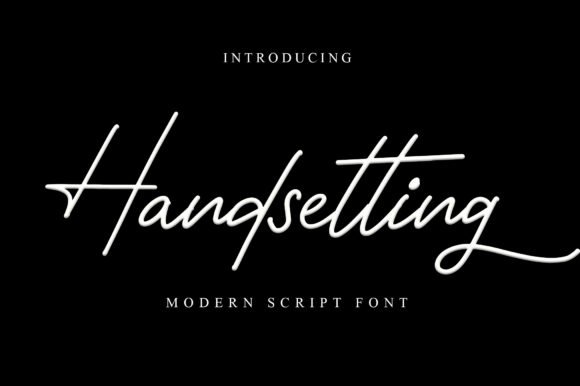
Discover the Timeless Elegance of Handsetting Font
There’s something magical about holding a pen to paper and watching words come to life. For designers, this moment is often the spark that ignites a creative idea. It’s the thrill of bringing a concept to life, of infusing emotion and personality into every detail. And when it comes to typography, few fonts evoke the same sense of wonder and sophistication as the Handsetting Font.
Handcrafted with love and precision, this beautiful script font is designed to add a touch of elegance to any design. Whether you’re working on a wedding invitation, a luxury brand brochure, or a heartfelt letter, Handsetting Font is the perfect choice for those who crave a unique and refined look.
With its delicate curves and subtle flair, Handsetting Font is a valuable addition to any designer’s toolkit. Its versatility and sophistication make it a go-to choice for projects that demand a level of refinement and sophistication. Whether you’re a seasoned pro or just starting out, Handsetting Font is sure to inspire your next creative project.
Key Features of Handsetting Font
- Unique characteristic: Handsetting Font features a distinctive, handwritten aesthetic with subtle imperfections, giving it a personal and human touch.
Review: Handsetting Font
First off, let’s talk about what I love about Handsetting Font: ✨ it’s incredibly versatile and works beautifully in both digital and print applications. The font’s elegant, handwritten feel is perfect for creating a touch of personality in your designs. The high-quality vector graphics ensure crisp and clear output, regardless of the resolution. ✨ Another great feature is the extensive character set, which includes a wide range of languages and special characters.
Overall, I’m impressed with Handsetting Font’s potential, but I would like to see some improvements in terms of file size and compatibility. With some tweaks, this font could become a go-to choice for designers looking for a unique, elegant feel.
Handsetting font is ideal for creating unique, personalized designs. Use it for invitations, wedding stationery, and other special occasion materials. You can also use it to add a touch of elegance to business cards, brochures, and other marketing materials.